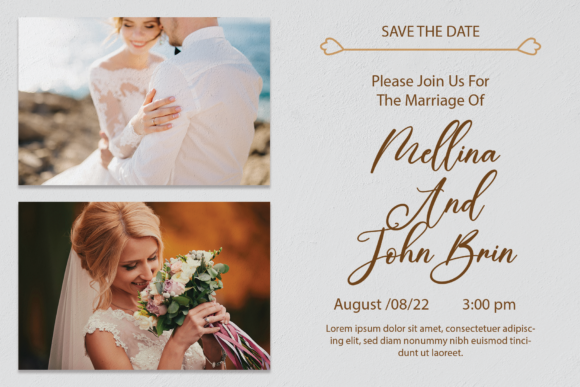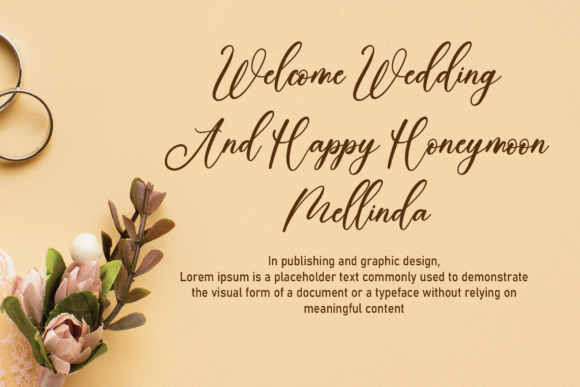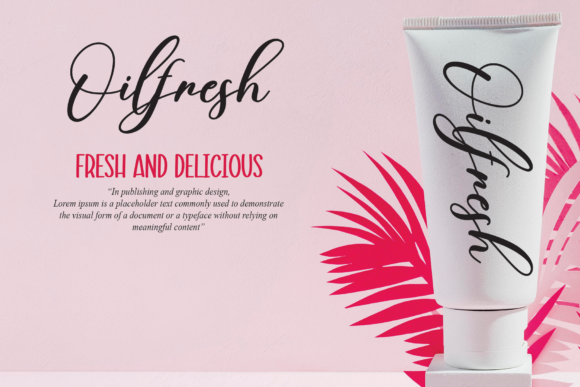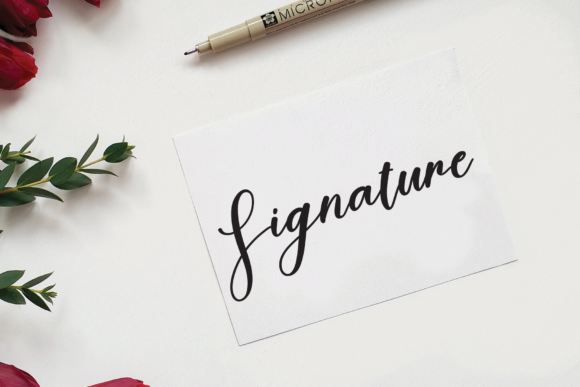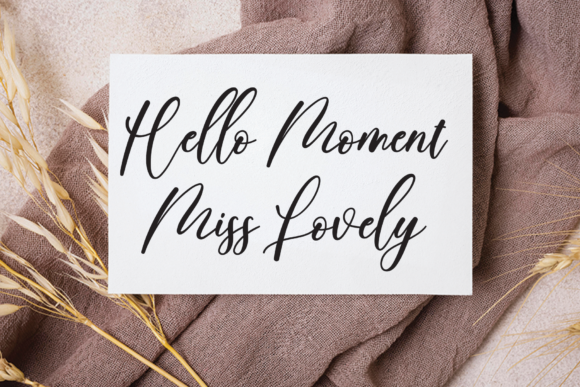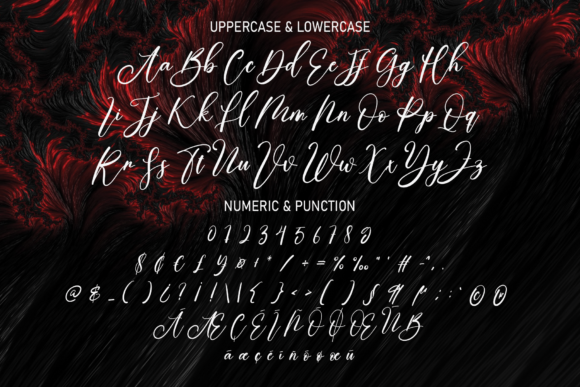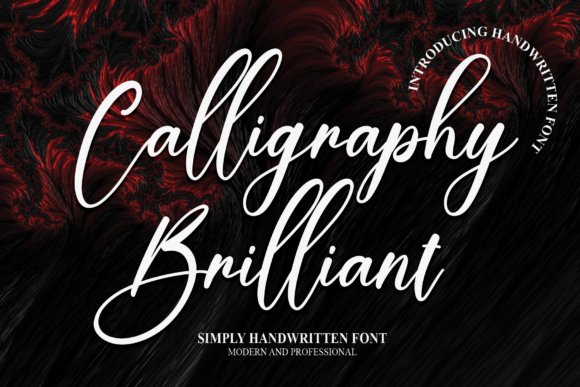
Introducing Calligraphy Brilliant Font: Elevate Your Designs with Elegance
Are you looking for a font that adds a touch of sophistication and glamour to your designs? Look no further than Calligraphy Brilliant Font, a stunning script font that is perfect for a wide range of projects. In this article, we’ll explore the features and benefits of Calligraphy Brilliant, and show you how to make the most of this beautiful font.
What is Calligraphy Brilliant Font?
Calligraphy Brilliant Font is a fashionable and delicate script font that is designed to add a touch of elegance to your designs. With its intricate and flowing lines, this font is perfect for creating beautiful and sophisticated text-based designs. Whether you’re working on a logo, branding project, label, or any other type of design, Calligraphy Brilliant is sure to impress.
Key Features of Calligraphy Brilliant Font
So, what makes Calligraphy Brilliant Font so special? Here are just a few of its key features:
- Fashionable and delicate design: Calligraphy Brilliant Font features a beautiful, intricate design that is perfect for creating sophisticated text-based designs.
- Suitable for a wide range of projects: Whether you’re working on a logo, branding project, label, photography, watermark, or any other type of design, Calligraphy Brilliant is a great choice.
- Beautiful script taste: This font has a lovely script taste that is perfect for adding a touch of elegance to your designs.
Use Cases for Calligraphy Brilliant Font
So, what types of projects is Calligraphy Brilliant Font suitable for? Here are just a few ideas:
- Logos and branding projects: Calligraphy Brilliant Font is perfect for creating sophisticated logos and branding materials that make a lasting impression.
- Labels and packaging: Add a touch of elegance to your labels and packaging with Calligraphy Brilliant Font.
- Photography and watermark: Use Calligraphy Brilliant Font to create beautiful watermarks for your photos, or to add a touch of sophistication to your photography designs.
- Special events: Calligraphy Brilliant Font is perfect for creating beautiful invitations, programs, and other materials for special events like weddings, parties, and more.
Tips for Using Calligraphy Brilliant Font
Here are a few tips for getting the most out of Calligraphy Brilliant Font:
- Use it sparingly: Because Calligraphy Brilliant Font is so elegant and sophisticated, it’s best to use it sparingly. Use it for headings, titles, or other key elements, and pair it with a simpler font for body text.
- Experiment with colors and textures: Calligraphy Brilliant Font looks great in a variety of colors and textures. Experiment with different combinations to find the one that works best for your design.
- Pay attention to spacing and kerning: Because Calligraphy Brilliant Font is a script font, it’s especially important to pay attention to spacing and kerning. Make sure to adjust these elements to create a beautiful and harmonious design.
Calligraphy Brilliant Font is a stunning script font that is perfect for adding a touch of elegance and sophistication to your designs. With its fashionable and delicate design, this font is suitable for a wide range of projects, from logos and branding materials to labels, photography, and special events. By following the tips outlined in this article, you can make the most of Calligraphy Brilliant Font and create beautiful, sophisticated designs that impress.
Get Creative with Calligraphy Brilliant Font
Ready to get started with Calligraphy Brilliant Font? Here are a few ideas to get you started:
- Create a beautiful logo: Use Calligraphy Brilliant Font to create a stunning logo for your business or brand.
- Design a gorgeous label: Add a touch of elegance to your labels with Calligraphy Brilliant Font.
- Make a stunning watermark: Use Calligraphy Brilliant Font to create a beautiful watermark for your photos.